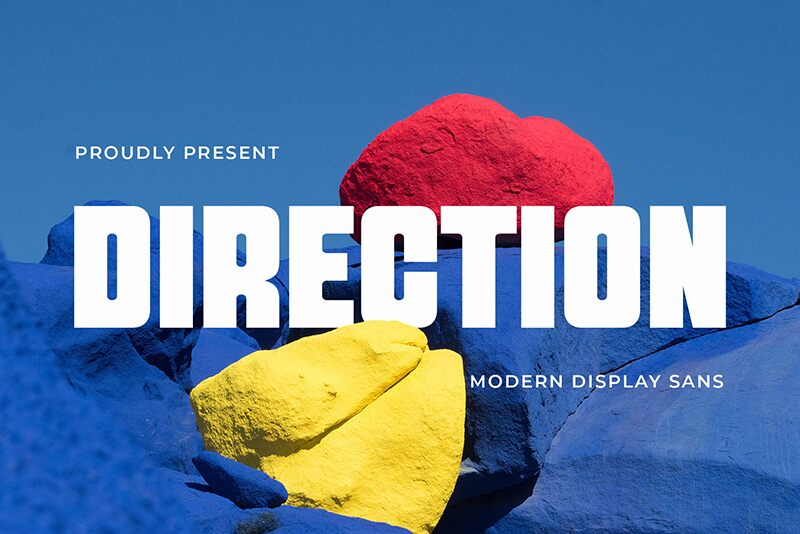
Direction, a striking sans-serif font crafted by BrandSemut, exudes a bold and confident aesthetic. This condensed typeface showcases its strength through its sturdy letterforms and sleek, minimalist design. The sharp, clean lines and balanced proportions create a sense of precision and clarity, making Direction an impactful choice for a variety of design projects.
With its versatile nature, Direction can seamlessly integrate into diverse design contexts, from modern branding and editorial layouts to eye-catching display typography. The font's bold presence and condensed width make it an exceptional option for creating powerful headlines, attention-grabbing titles, and strong visual hierarchies. Direction's unique character and adaptability ensure it can elevate the visual impact of any design, leaving a lasting impression on the audience.